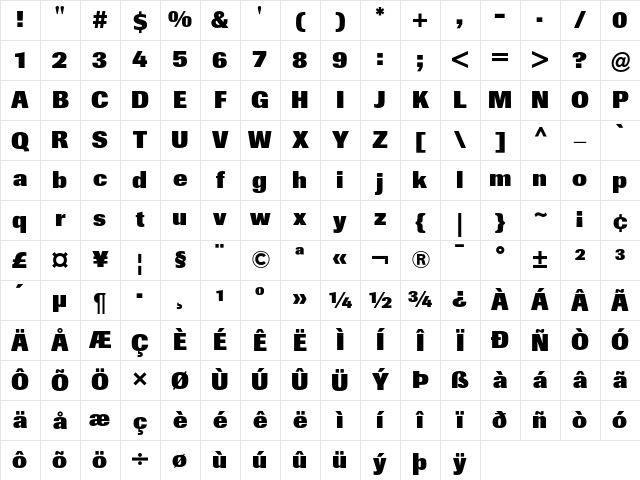
Berthold Imago Extra Bold
Style: Extra Bold
Complete Berthold Imago Extra Bold glyph index. Displaying only characters natively supported by Berthold Imago Extra Bold font.
Design Context for Berthold Imago
Berthold Imago is a composed and adaptable typeface that performs quietly and consistently across a wide range of design contexts. Its bold stroke weight gives it real presence on the page.